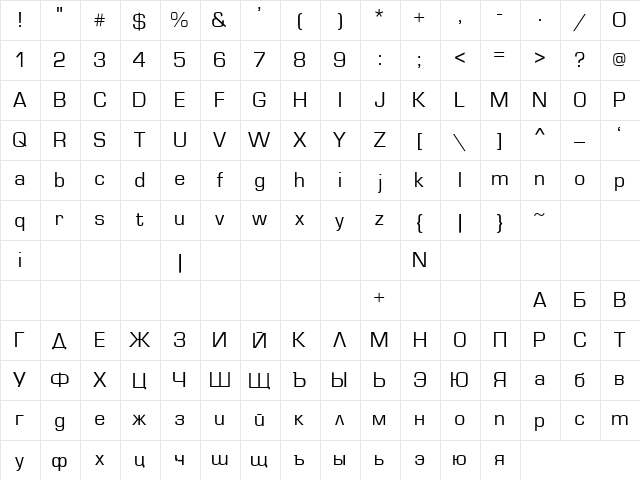
EuroStyle Normal
Design Context for EuroStyle Typeface
EuroStyle is a composed and adaptable typeface that performs quietly and consistently across a wide range of design contexts.